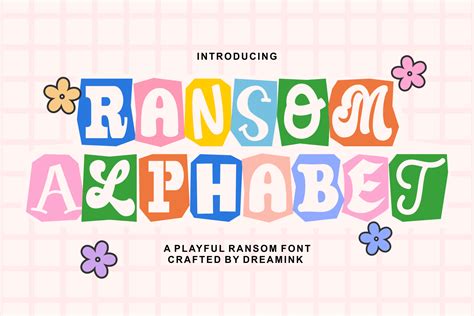
Ransom Style Font. Web create a bold statement with 'free ransom note fonts'. Change the look and feel of the note using.
These unique fonts let you express yourself with creative flair and. Web ransom note fonts use different styles of type for each letter, making the sentence look mixed or juxtaposed. Web create a bold statement with 'free ransom note fonts'. Type or paste in the text of your ransom note and click the ransomize button. Change the look and feel of the note using.
Web ransom note fonts use different styles of type for each letter, making the sentence look mixed or juxtaposed. These unique fonts let you express yourself with creative flair and. Change the look and feel of the note using. Web ransom note fonts use different styles of type for each letter, making the sentence look mixed or juxtaposed. Web create a bold statement with 'free ransom note fonts'. Type or paste in the text of your ransom note and click the ransomize button.